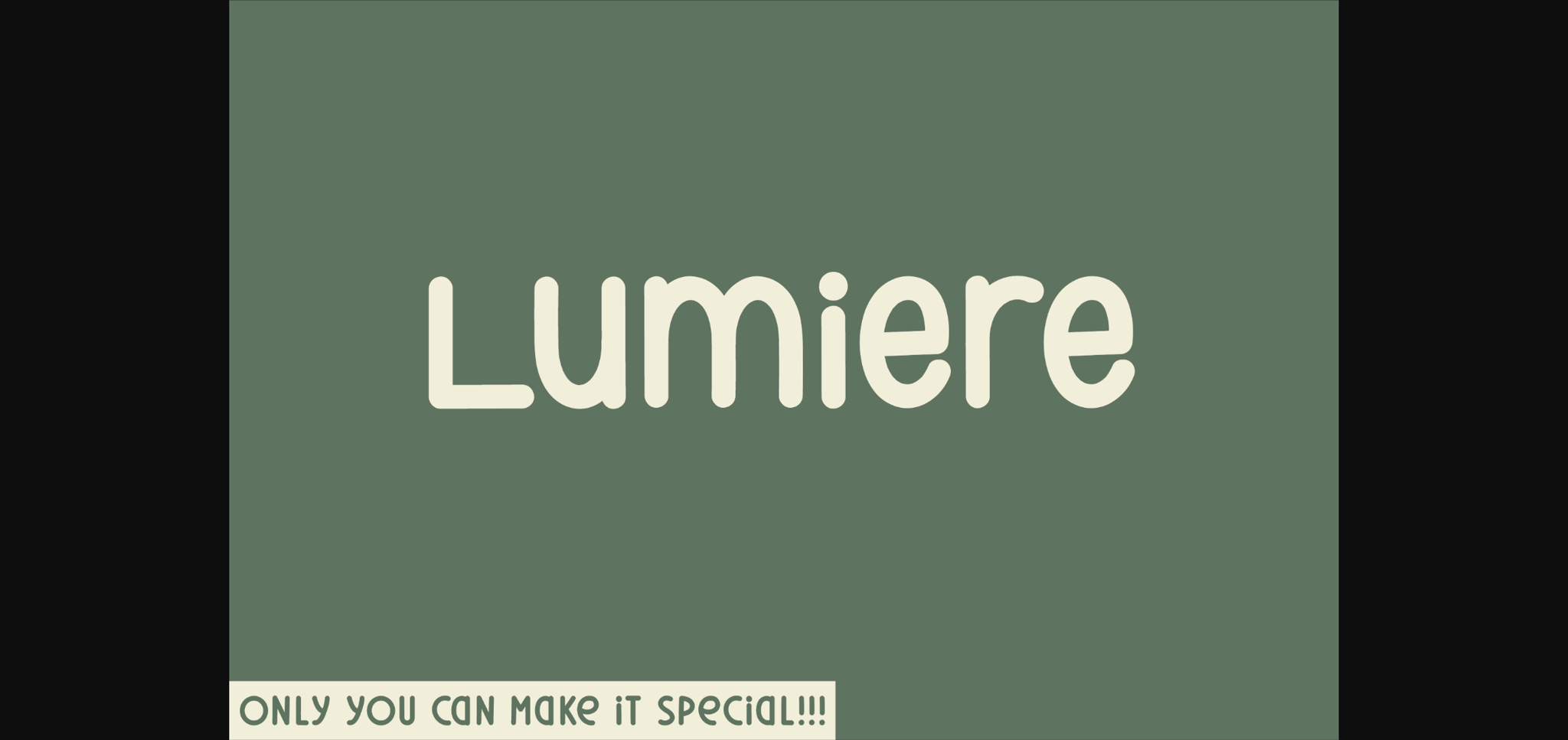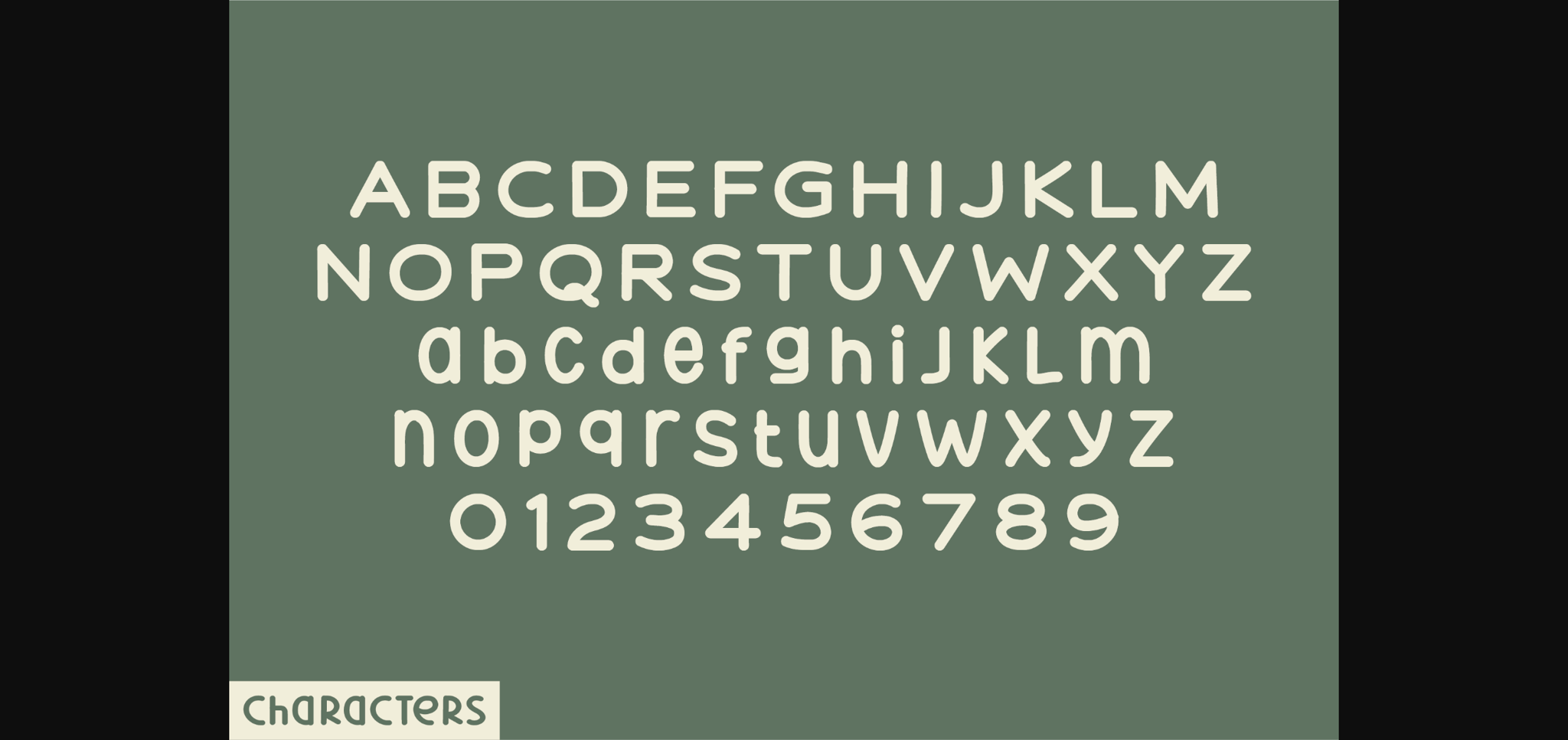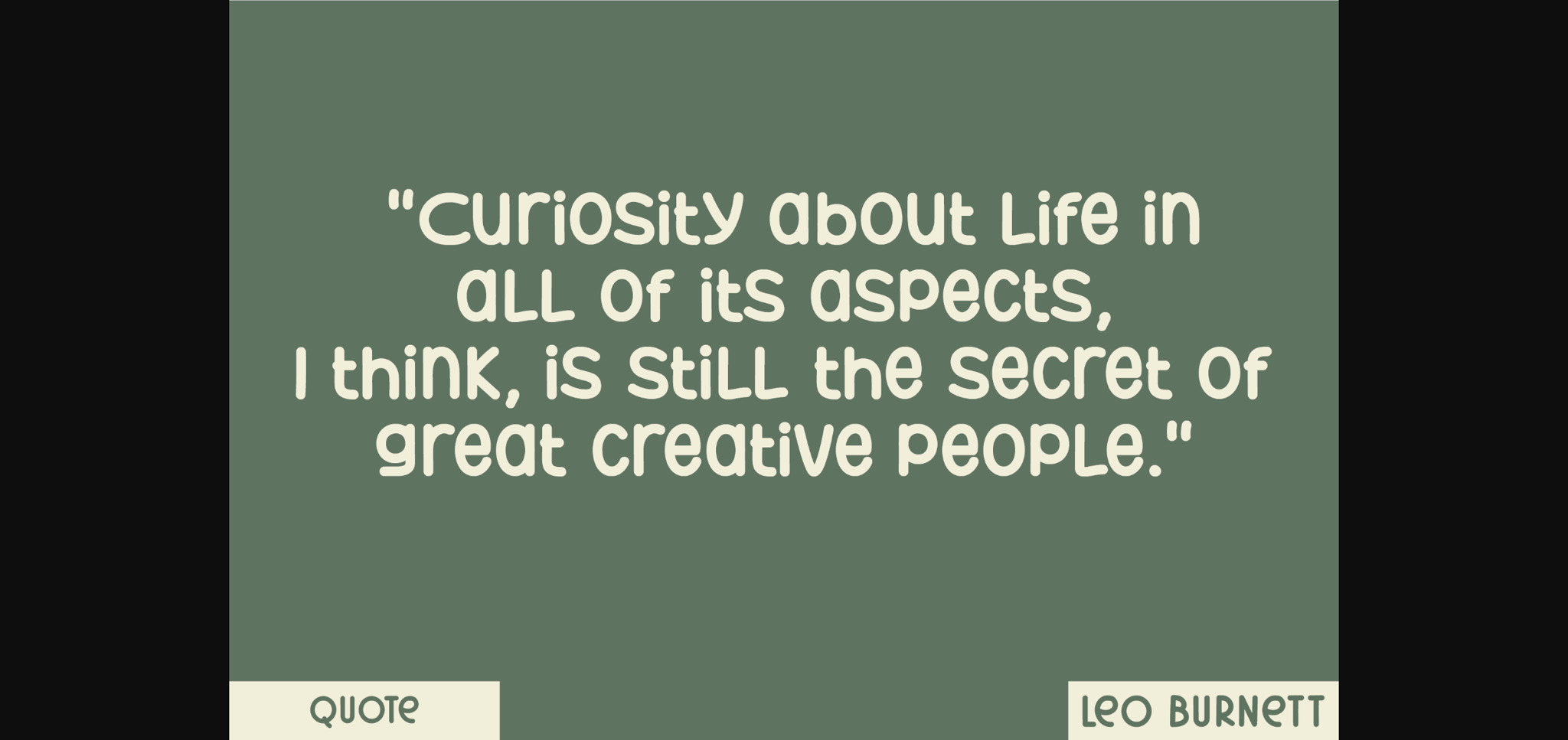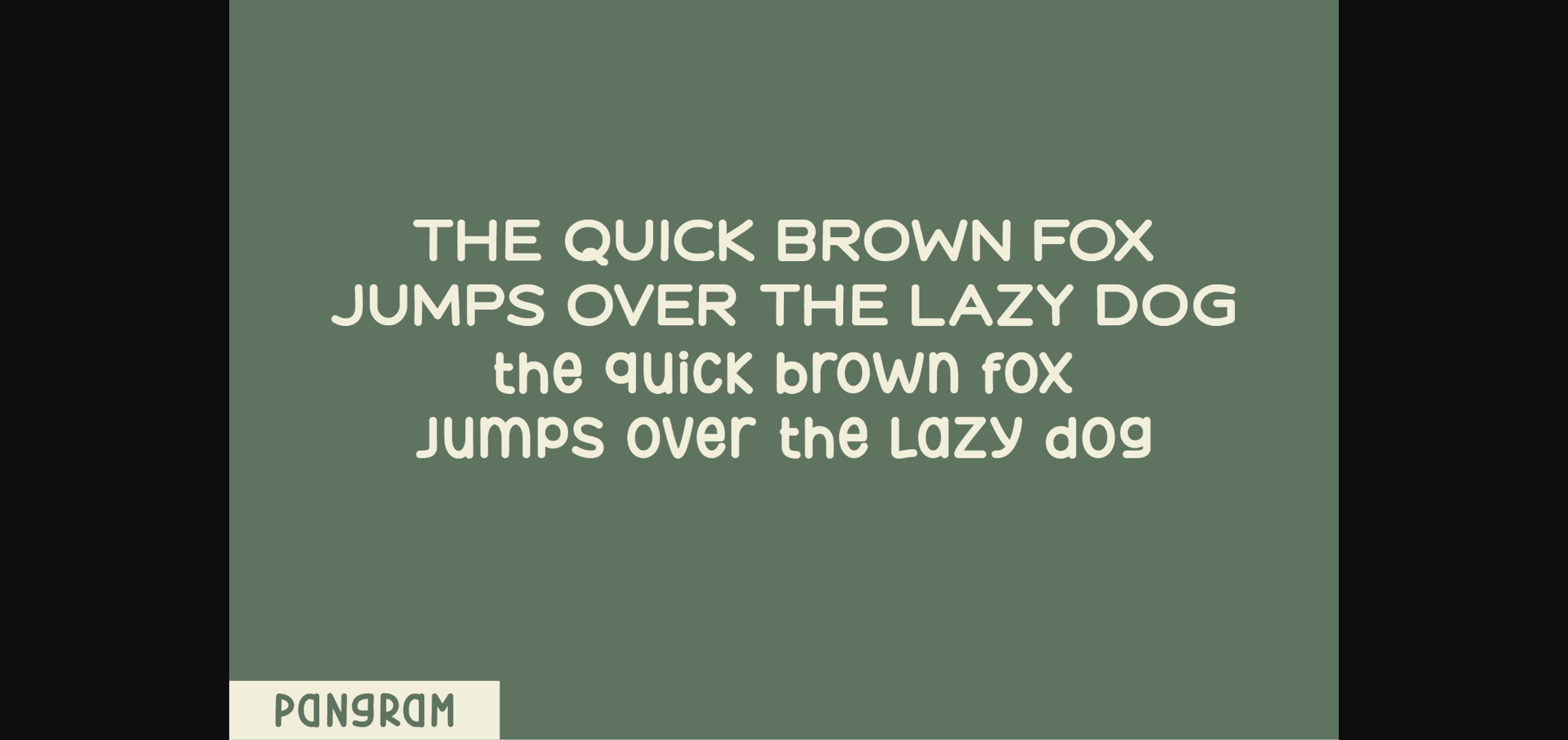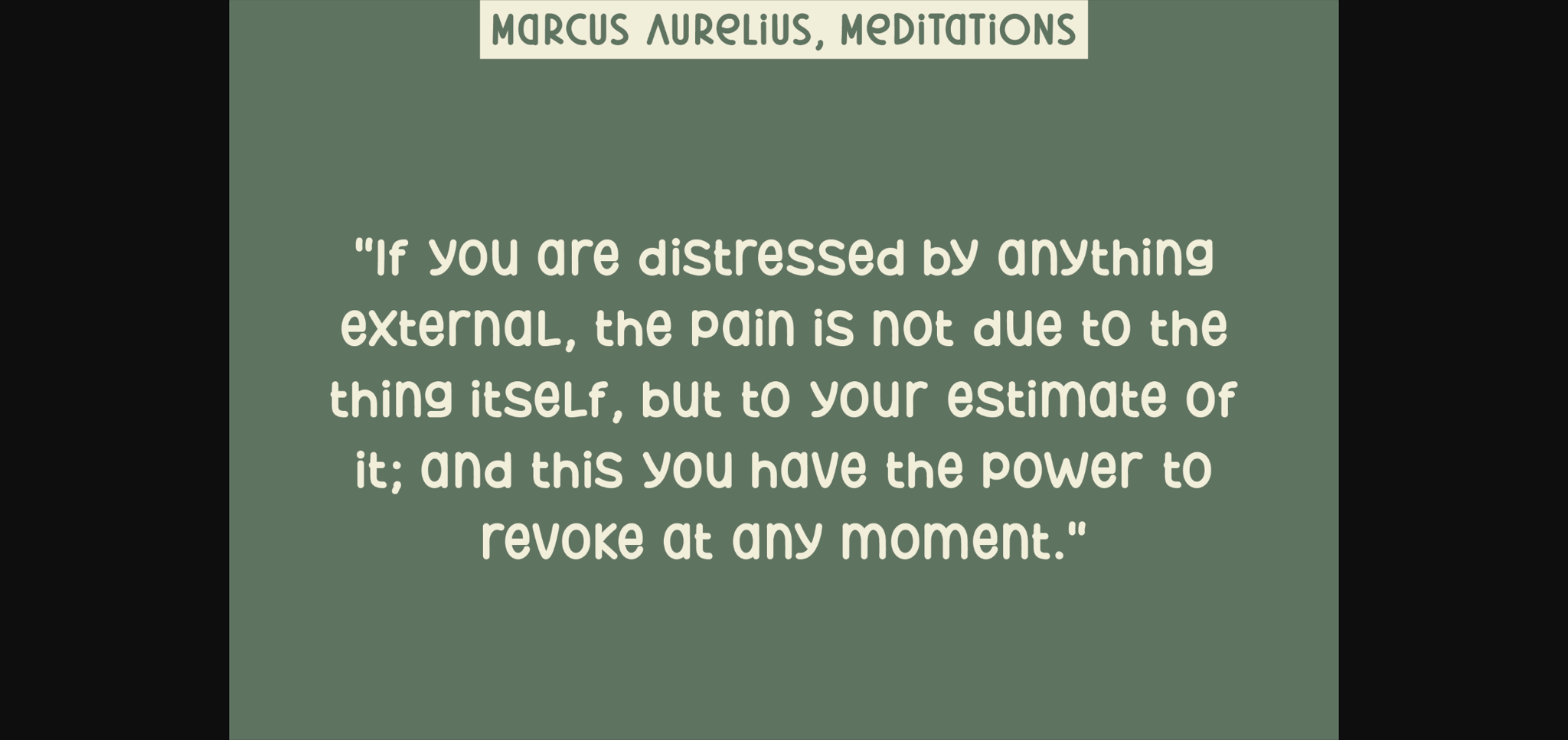
Lumiere Font
About Lumiere Font
Introducing Lumiere, a captivating display font designed with an exclusive sans-serif pattern. Its letters are exquisitely finished with rounded tips, delivering a charming and appealing aesthetic. Lumiere stands as the go-to font for designs yearning to convey messages that exude beauty, pleasure and cheerfulness.